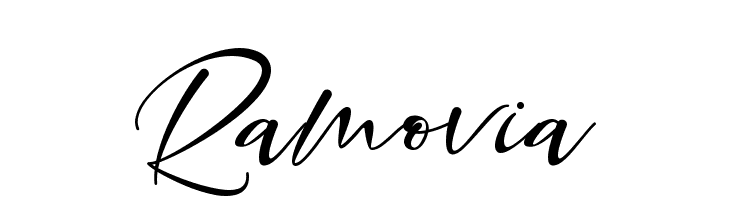
A playful, handwritten font with bold, rounded strokes and a casual feel.
A playful, handwritten font with a casual and whimsical style.
A whimsical and elegant script font with flowing, cursive letters and decorative flourishes.
A playful, whimsical handwritten font with fluid, interconnected strokes.